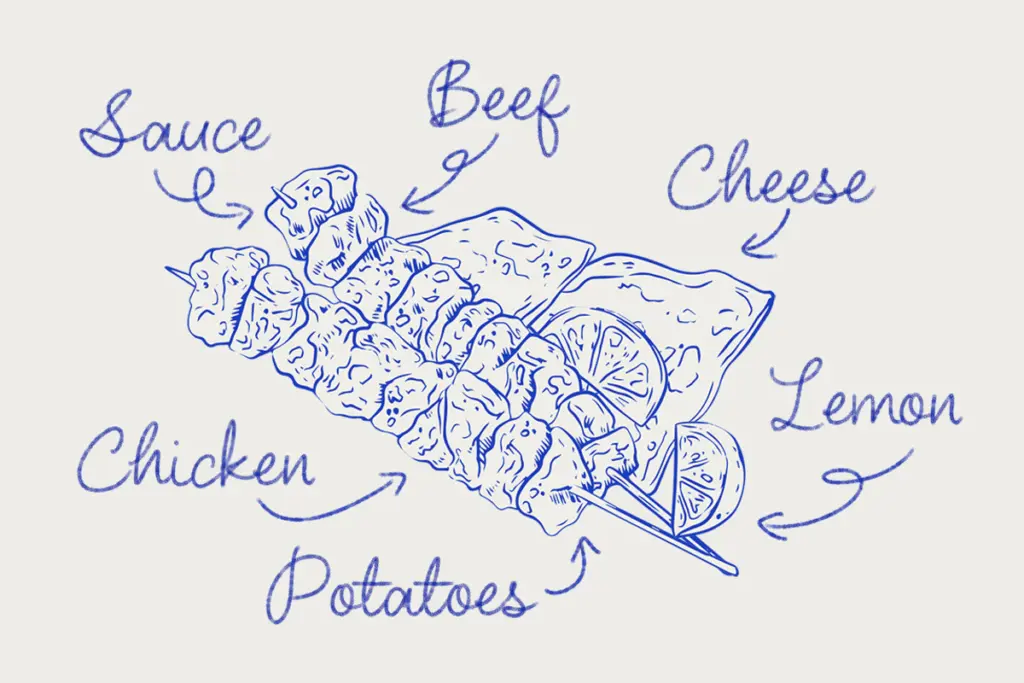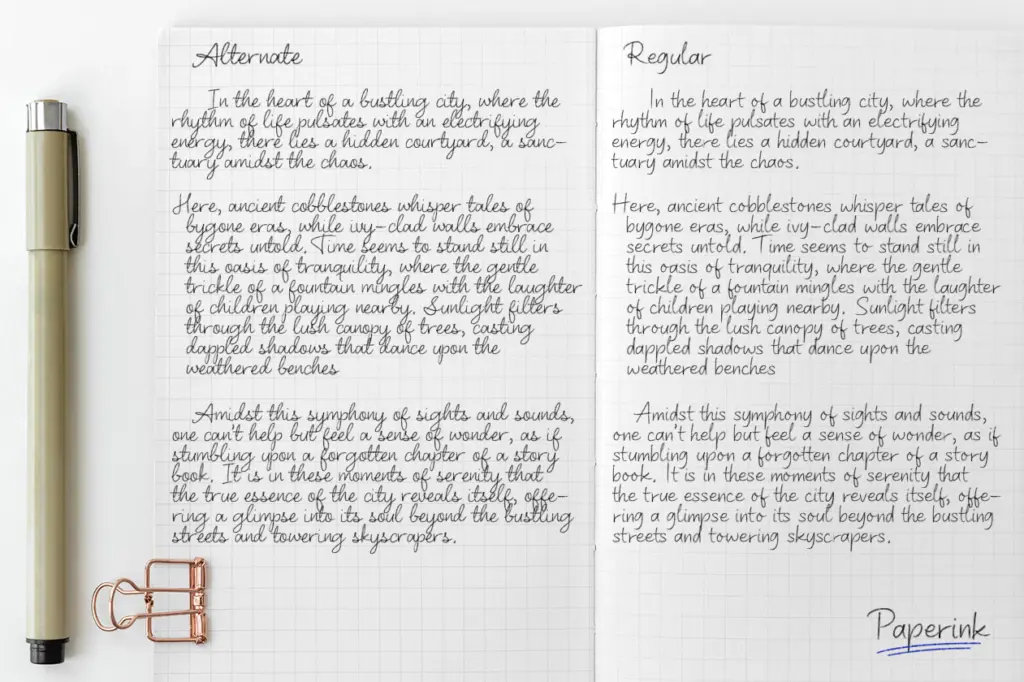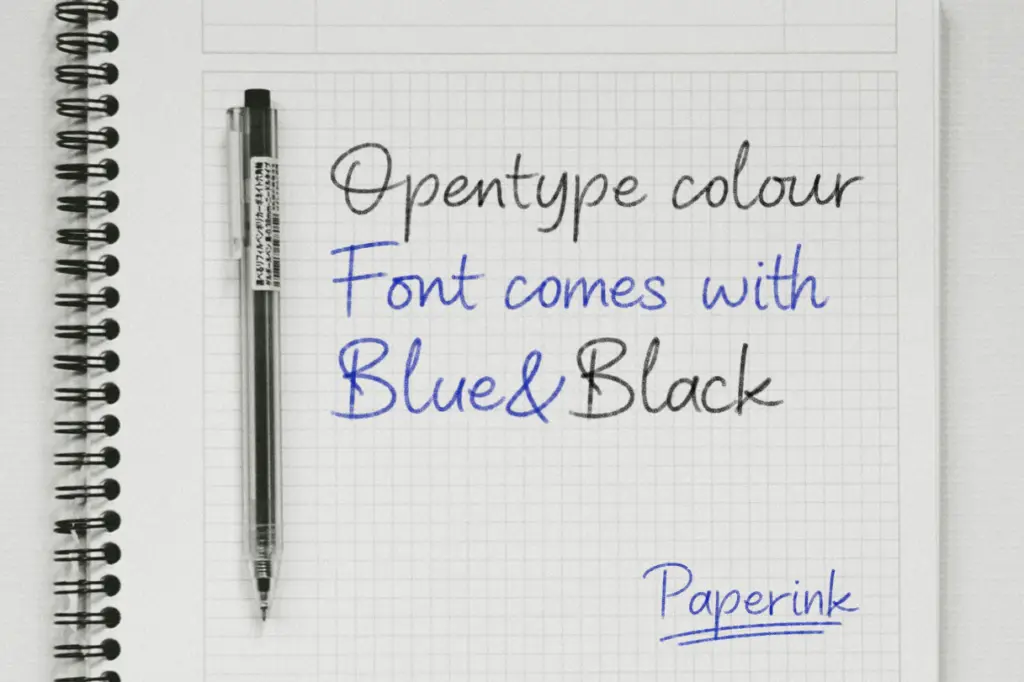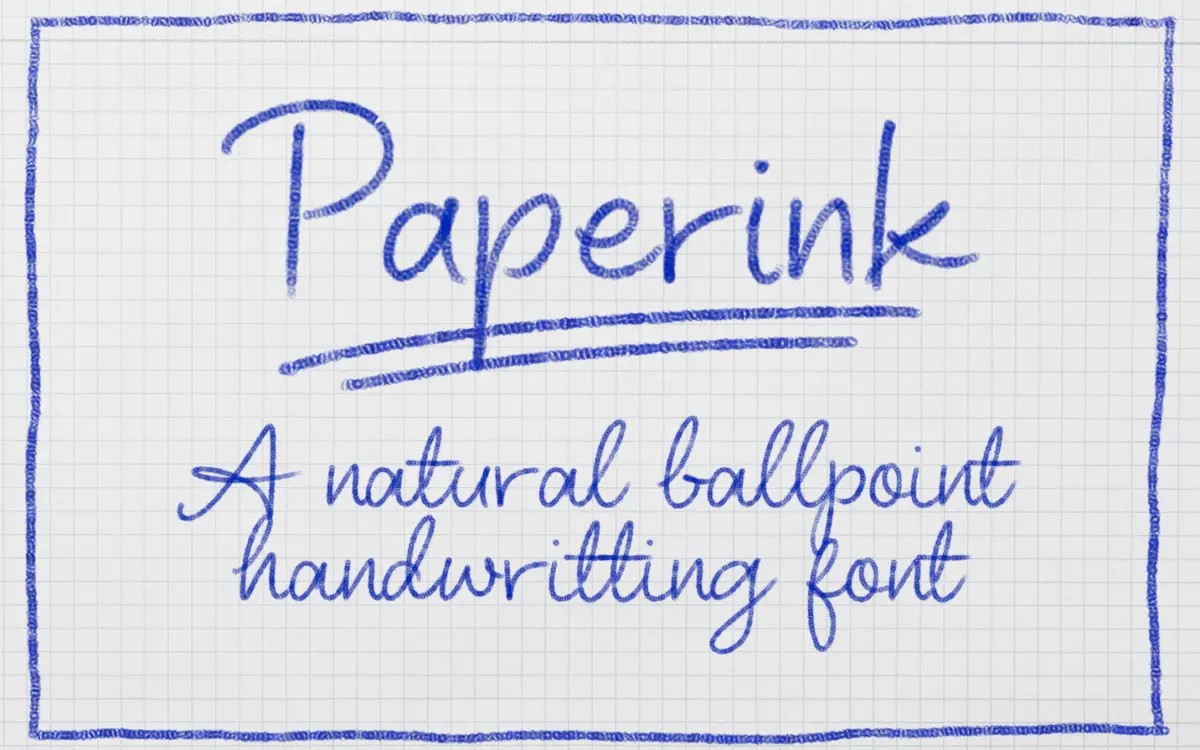
Paperink is a handwritten script built as a color SVG font, with the ink itself as the subject rather than just the letterforms. The strokes carry visible texture — variable pressure, slightly ragged edges, the kind of inconsistency a felt-tip or brush pen leaves on paper. It reads as a genuine attempt to reproduce handwriting rather than a script typeface dressed up with a grain overlay. It ships in two colorways, blue and black, plus a vector regular style for when you need flat, resizable outlines instead of the layered SVG glyphs.
The letters lean casual and loose. Joins between characters are loose and a little irregular, which suits notes, doodled headlines and anything meant to feel personal rather than typeset. It’s not an elegant script in the wedding-invitation sense — there’s no formal flourish system here, no consistent swash logic. It’s closer to a diary entry than a calligraphy exercise, and that’s the point.
The core selling point is the SVG color technology: each glyph is a small raster-like image rather than a flat vector shape, which is how the ink texture and color variation get baked in. That comes with a real caveat. Color/SVG fonts are not a universal file format — they render properly only in applications built to support them, and the seller is upfront that bitmap rendering breaks down in some Windows contexts. In practice this means Photoshop and Illustrator (recent versions) are the reliable home for this font, and installing it system-wide for use in a word processor or a browser is likely to disappoint. Design teams considering this need to check their own pipeline before committing to a layout built around it.
The included vector regular style is the workaround: strip out the color layering and you get standard vector letterforms that behave like any other script font, sizeable and editable everywhere. It won’t carry the same visual richness, but it’s the safety net for anyone who needs the shape without the SVG dependency.
No detail is given on language coverage, ligatures, or alternate glyph sets, so treat the character range as basic — enough for standard Latin text, not a font built for extended typographic control.
This is a font for finished artwork, not running text. Posters, social graphics, packaging mockups, invitation headers, anything produced inside a design app where the file is exported as a flat image at the end. The color ink texture reads best at display sizes — a few words, a title, a short phrase — where the grain and stroke variation actually register. Shrink it down to caption size and the texture becomes noise rather than character.
It’s not a font for UI, web body copy, or anything needing live, editable HTML text — the SVG format simply isn’t built for that. Anyone drawn to the color effect should plan their workflow around Illustrator or Photoshop from the outset, and keep the vector fallback in reserve for contexts outside that pipeline.
- The ink texture and stroke variation genuinely mimic hand lettering rather than a filtered script
- Two color options plus a plain vector fallback give some flexibility depending on the output
- Reads well at large display sizes where the ink texture has room to register
- Color SVG format only renders correctly in supporting applications, limiting practical use
- No documented ligatures, alternates or extended language support to speak of
Paperink delivers a genuinely textured, ink-like handwriting effect through color SVG glyphs, but that format locks it into a narrow set of applications. Useful for display headlines and finished artwork built in Illustrator or Photoshop; a poor fit for anything needing portable, editable text.